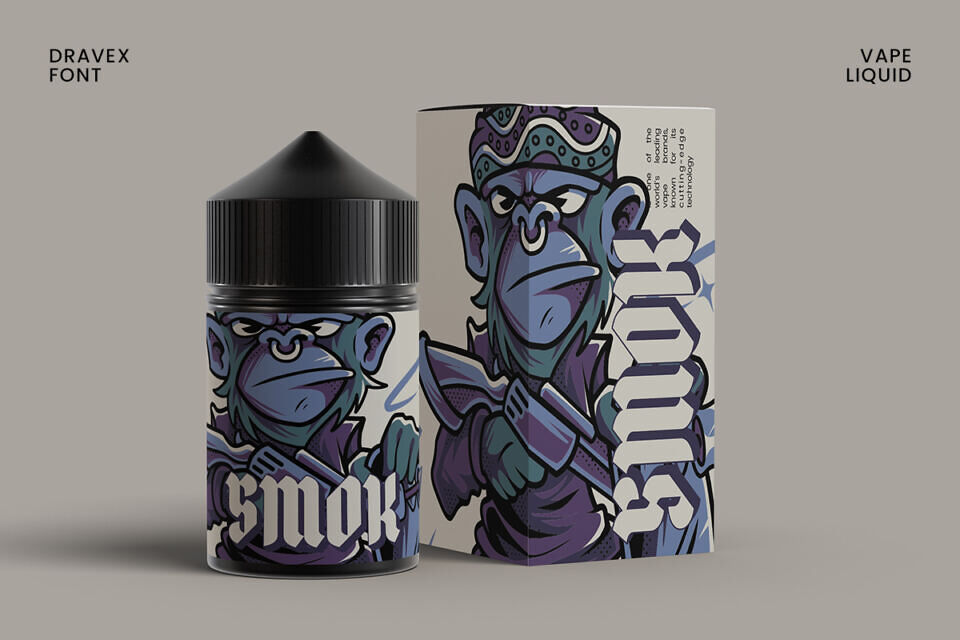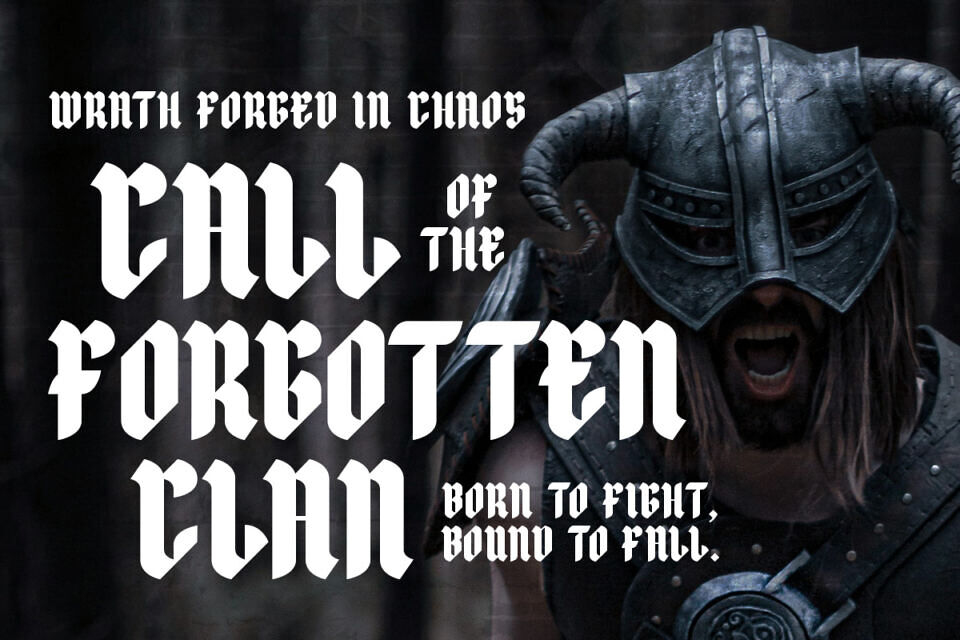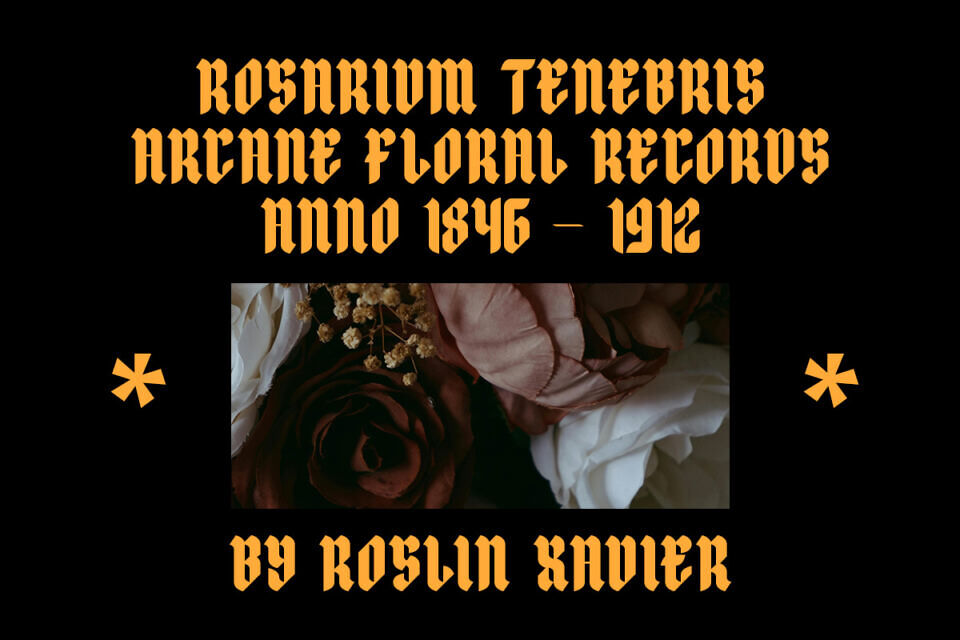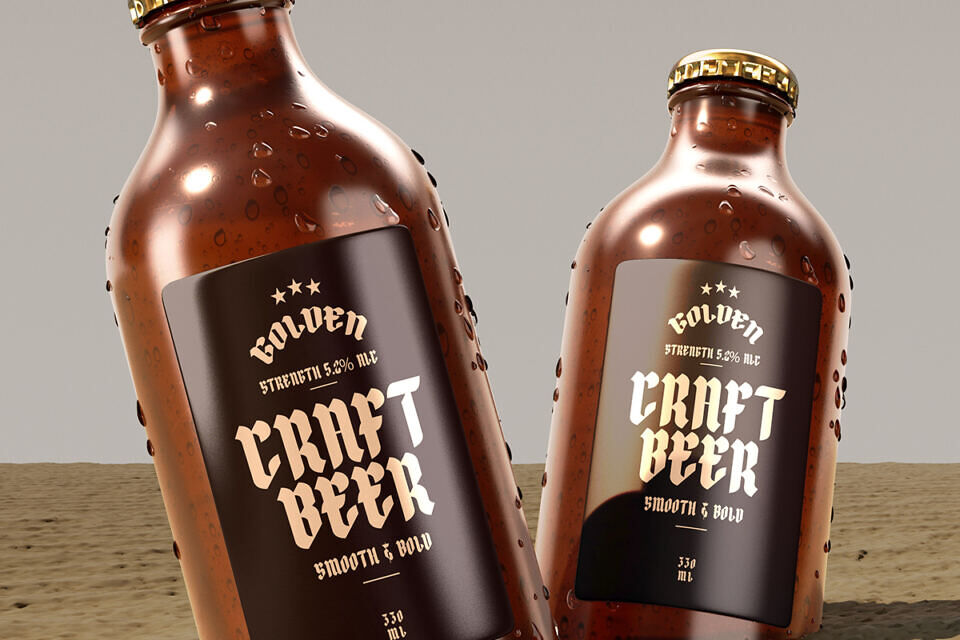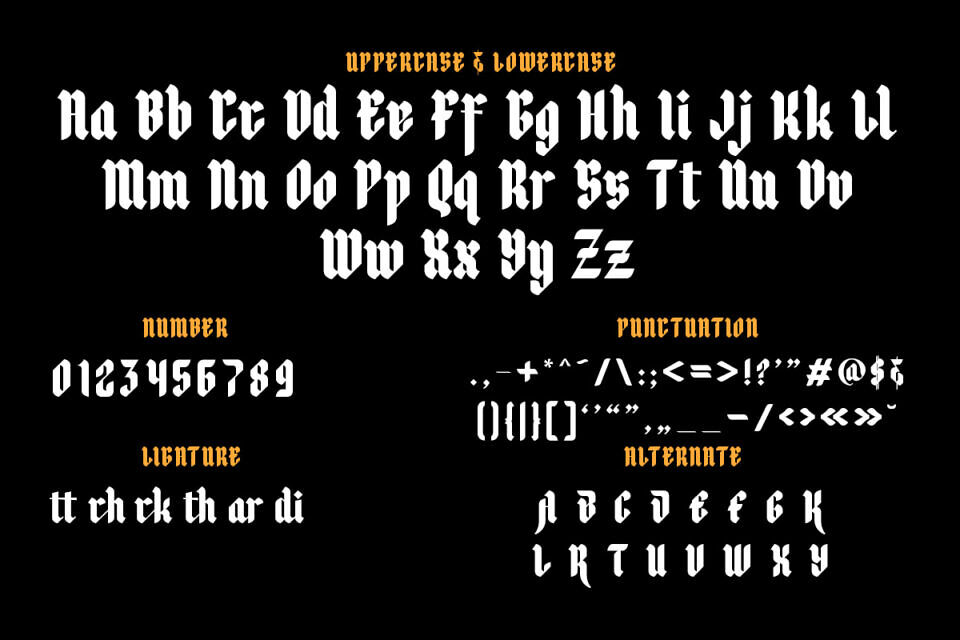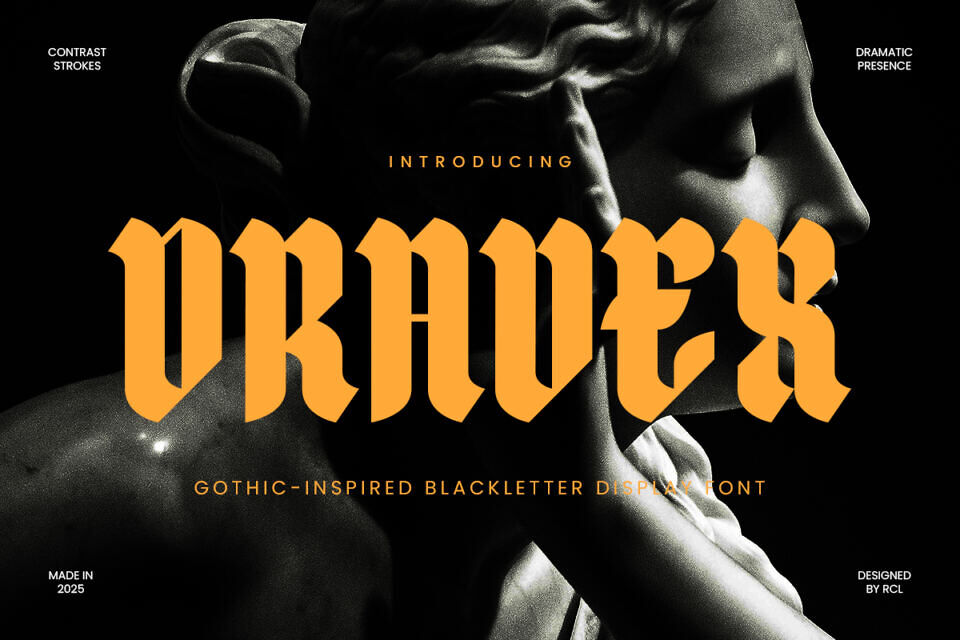
Draven Font
Dravex is a gothic-inspired blackletter display font that blends old-world drama with modern attitude. Featuring bold contrast strokes, sharp edges, and assertive presence, it’s perfect for making a visual statement.
Use Dravex in everything from album covers and editorials to brand identities, poster layouts, or digital art. It’s versatile enough to feel ancient and futuristic at once—bringing a unique twist to both minimal and expressive styles.